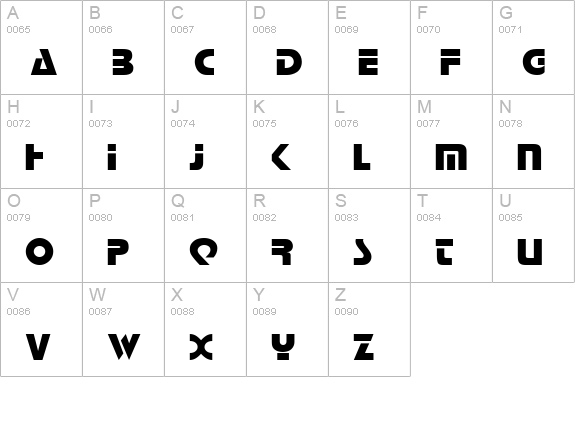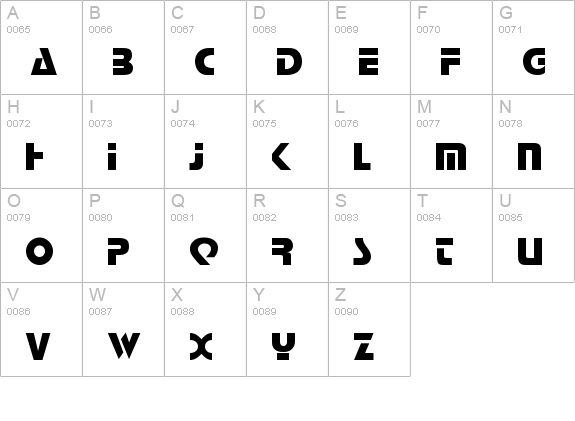
Stop Font Details
Introducing the Stop font, a stunning and versatile typeface that will stop you in your tracks with its unique and eye-catching design. This one-of-a-kind font is perfect for adding a touch of creativity and individuality to any project. The Stop font is a carefully crafted masterpiece, combining bold and modern elements with a hint of retro charm. Its sleek lines and sharp edges make it ideal for headlines, logos, posters, and any other design that needs to make a statement. But what sets the Stop font apart from the rest is its incredible versatility. With a wide range of weights and styles to choose from, you can easily adapt this font to suit any project or mood. Whether you're going for a bold and edgy look or a more elegant and sophisticated feel, the Stop font has got you covered. And the best part? The Stop font is absolutely free! That's right, you can download this incredible font for free at FontsMarket.com. We believe that great design shouldn't come with a hefty price tag, so we're thrilled to offer this font to you at no cost. So why wait? Enhance your designs with the Stop font and watch as it adds a touch of style and personality to your work. Download it now for free at FontsMarket.com and let your creativity soar.